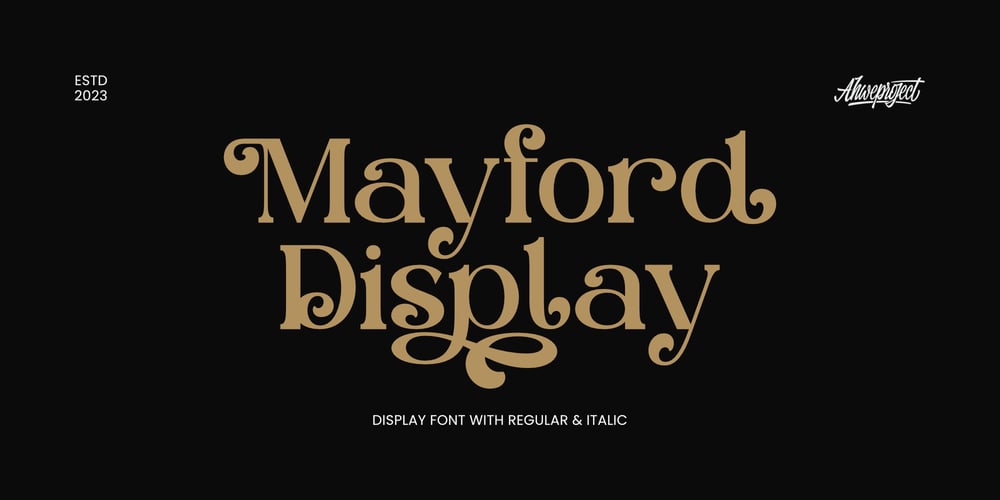
Mayford Display Font Family was designed by Dida Ahluddin and published by ahweproject. Mayford Display contains 3 styles and family package options. Mayford Display is a modern serif font with a unique style, a light and high contrast font perfect for feminine logo signs, fashion heads & editorial designs.